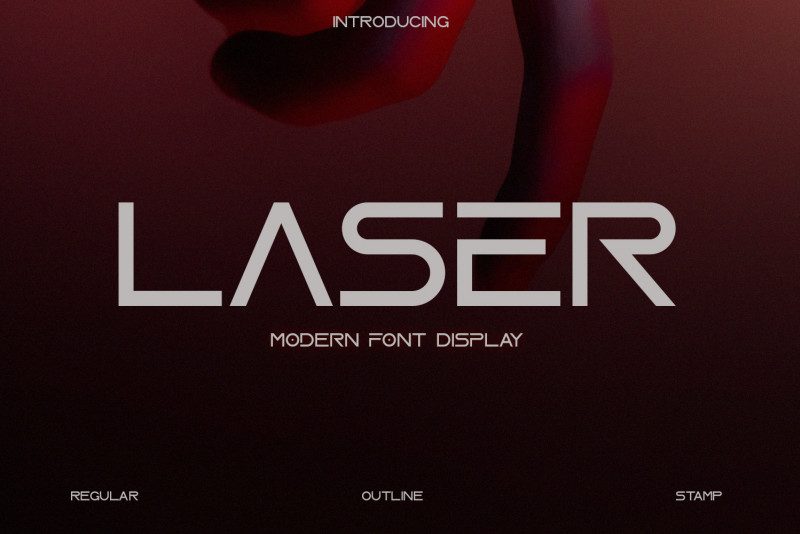
Laser Font Made By Linecreative Download Free For Personal Use Add To Favorites Share Science Fiction Medium Sans Serif Circular Headline Permalink Laser Regular Otf Ttf.
It is licensed completely free for personal use only. Laser font aug 11, 2020 laser is a cool, slick and futuristic display font with a bold feel. Laser font by line creative 374 downloads found in: